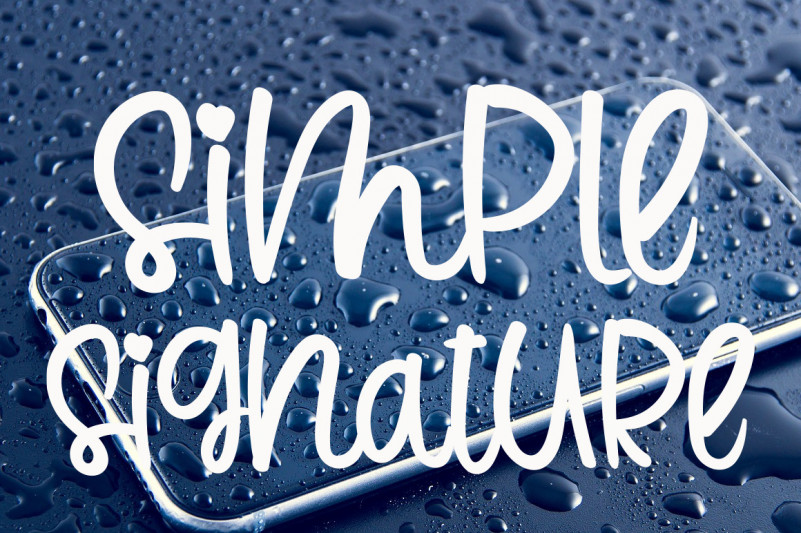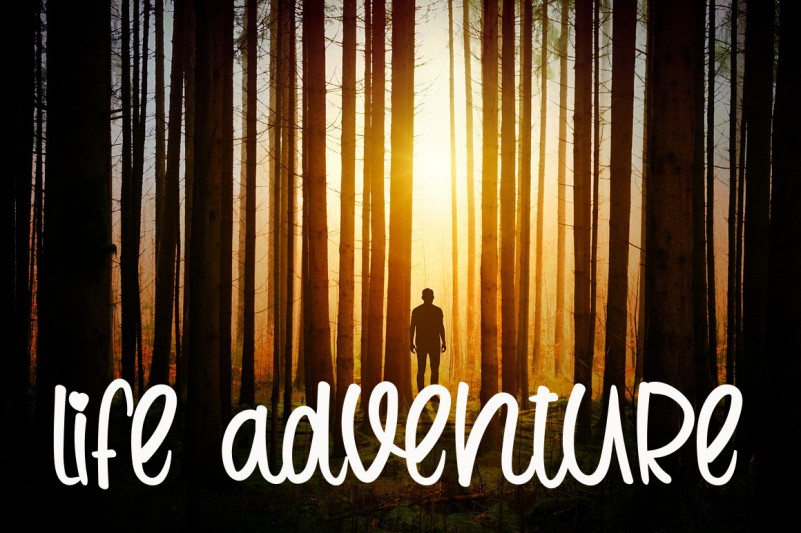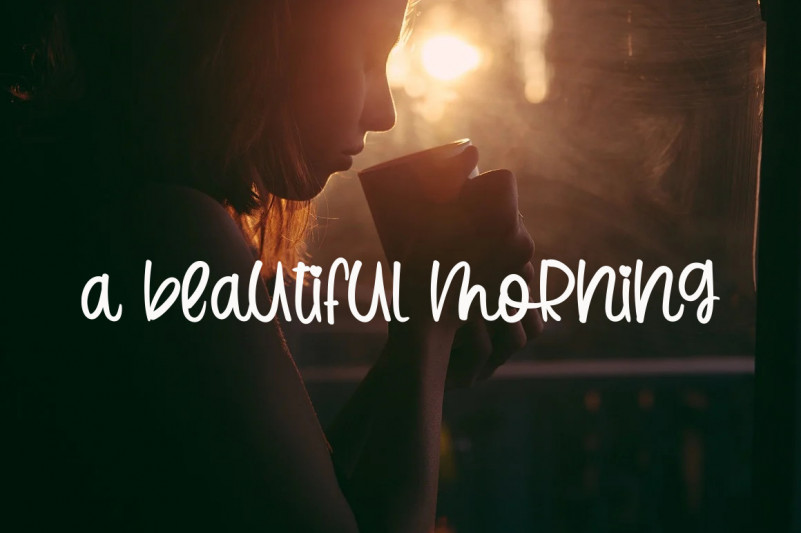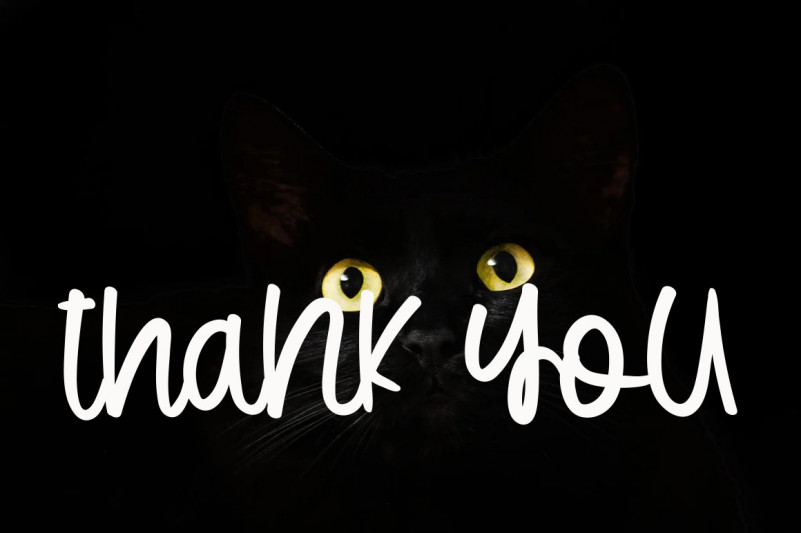
Rainbow Signature Script Font
This is a romantic handwritten font. With skillfully rounded and playful characters, this font will look great on wedding invitations, birthday cards, watermarks, and other creative projects!